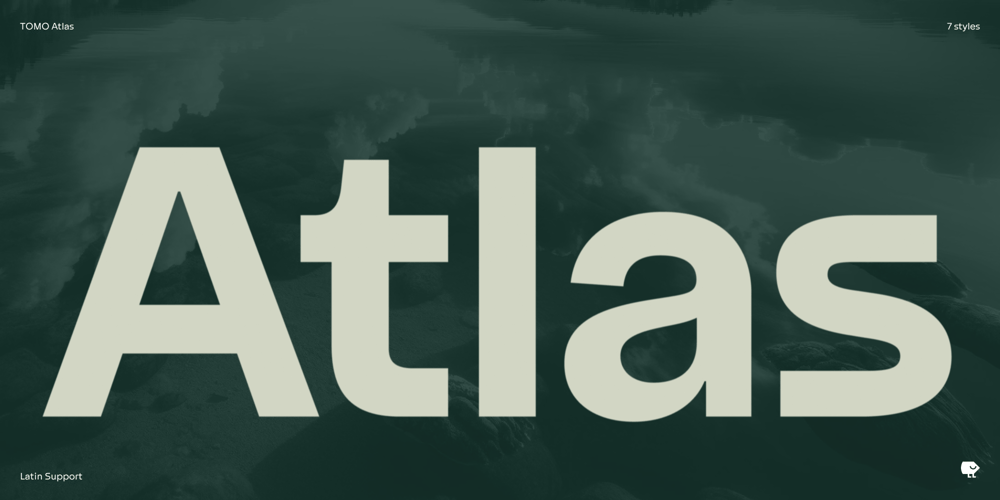
Atlas Font Family was designed by TOMO Fonts and published by TOMO Fonts. Atlas contains 7 styles and family package options. Introducing TOMO Atlas, a typeface that redefines modern typography. This linear and geometric sans-serif family is a testament to contemporary minimalist design. Crafted for versatility and readability, Atlas excels in both digital and print media. Its clean, open characters are not only web-optimized but also print-friendly, ensuring legibility across various platforms.The neutral yet professional demeanor of Atlas makes it perfect for branding, heading, and text applications. It embodies the Swiss design ethos with its elegant, subtle, and distinctly modern appeal. Whether bold statements or casual contexts, Atlas remains adaptable and scalable, maintaining clarity at any size.Atlas legible and clean appearance, combined with its accessibility features, makes it an ideal choice for designers looking to create a sophisticated and contemporary visual language. It’s an epitome of modern type design, balancing style with functionality to meet the diverse needs of today’s typography enthusiasts.